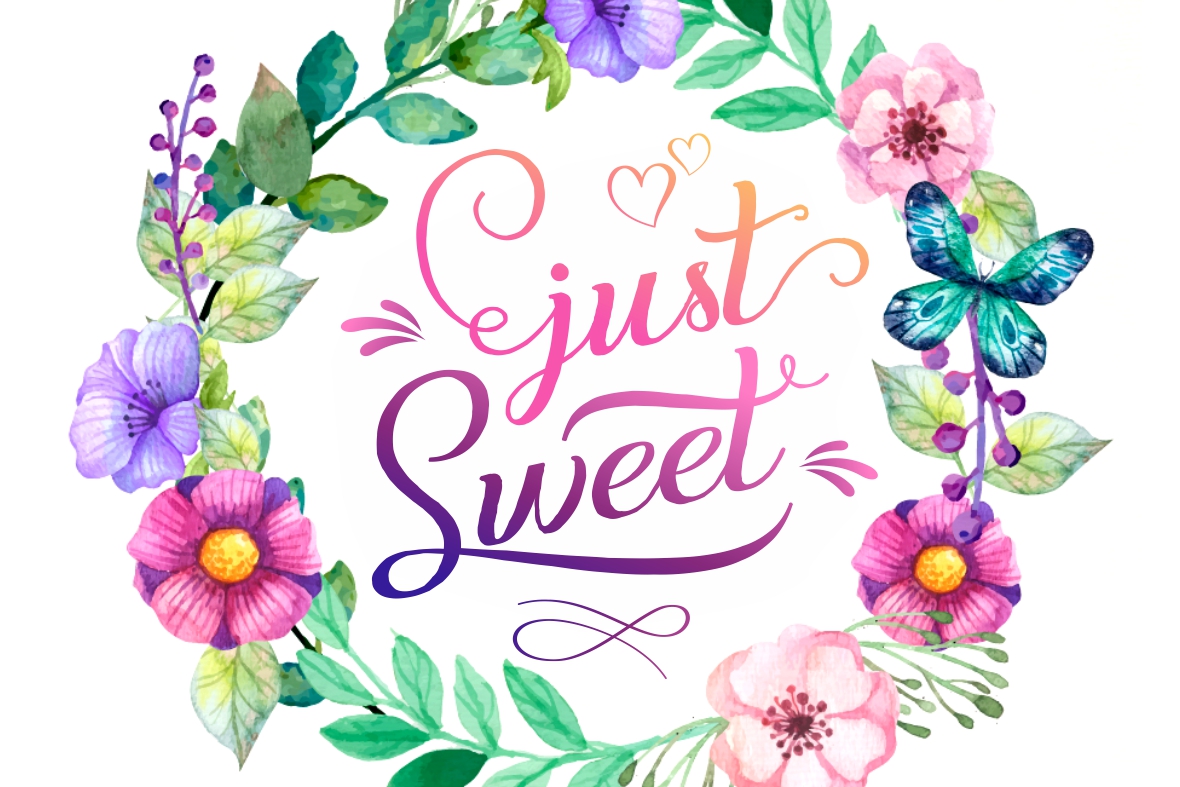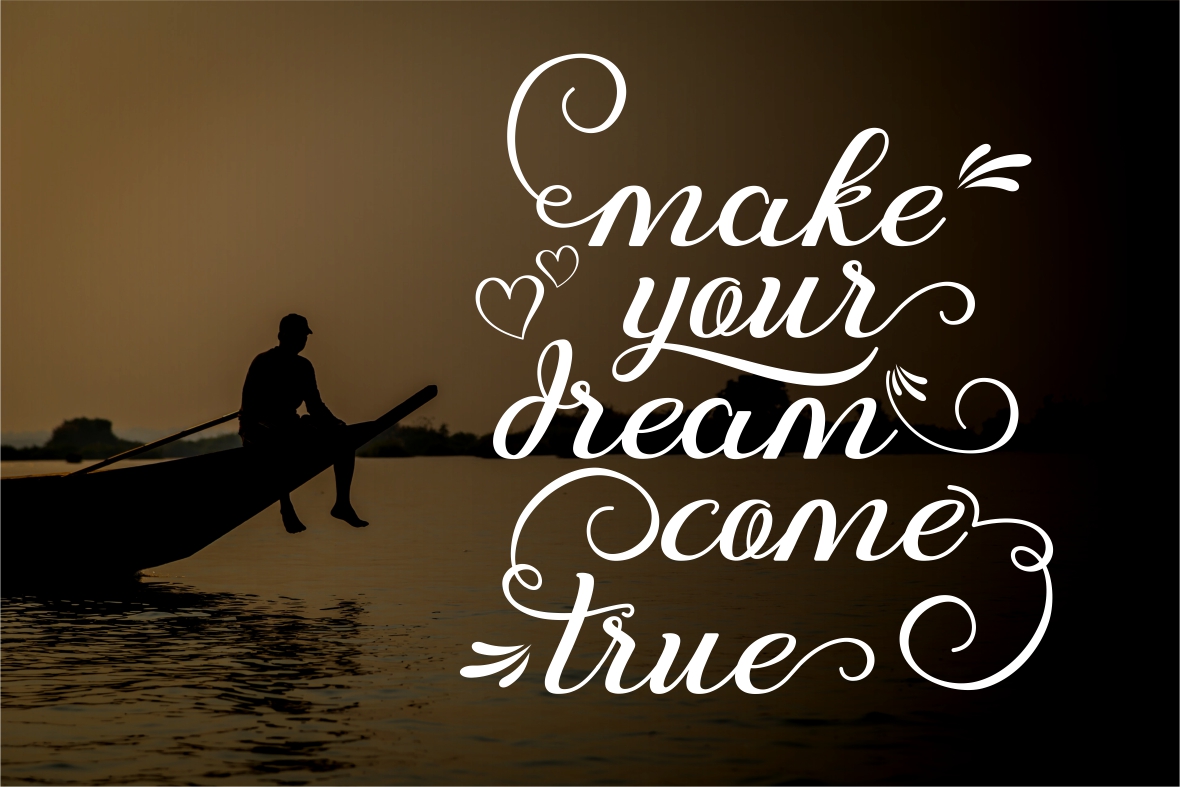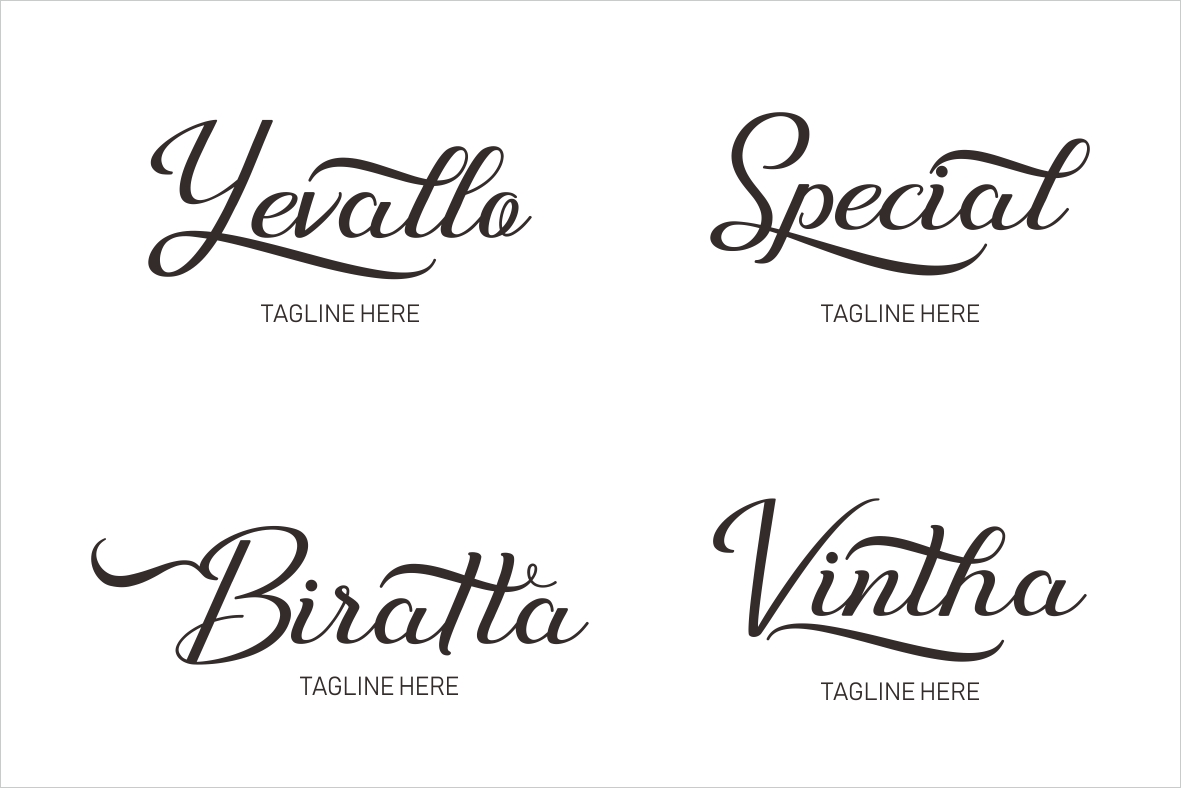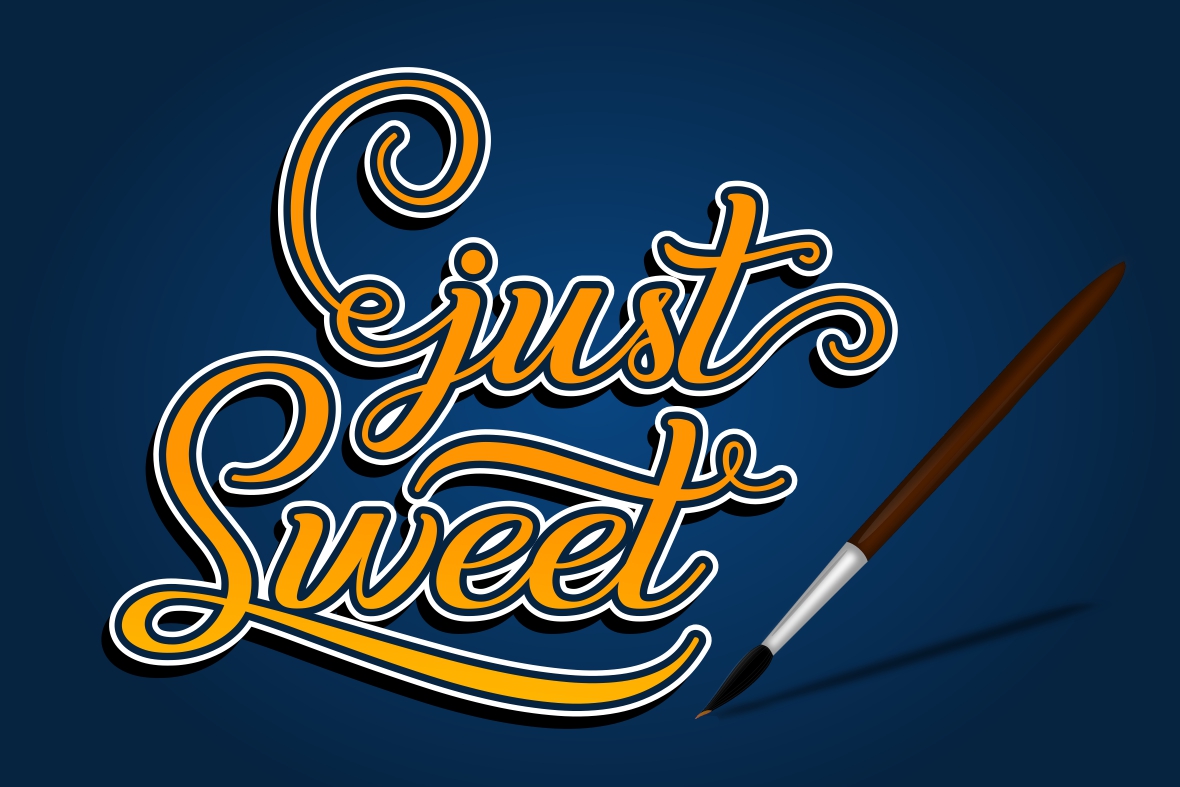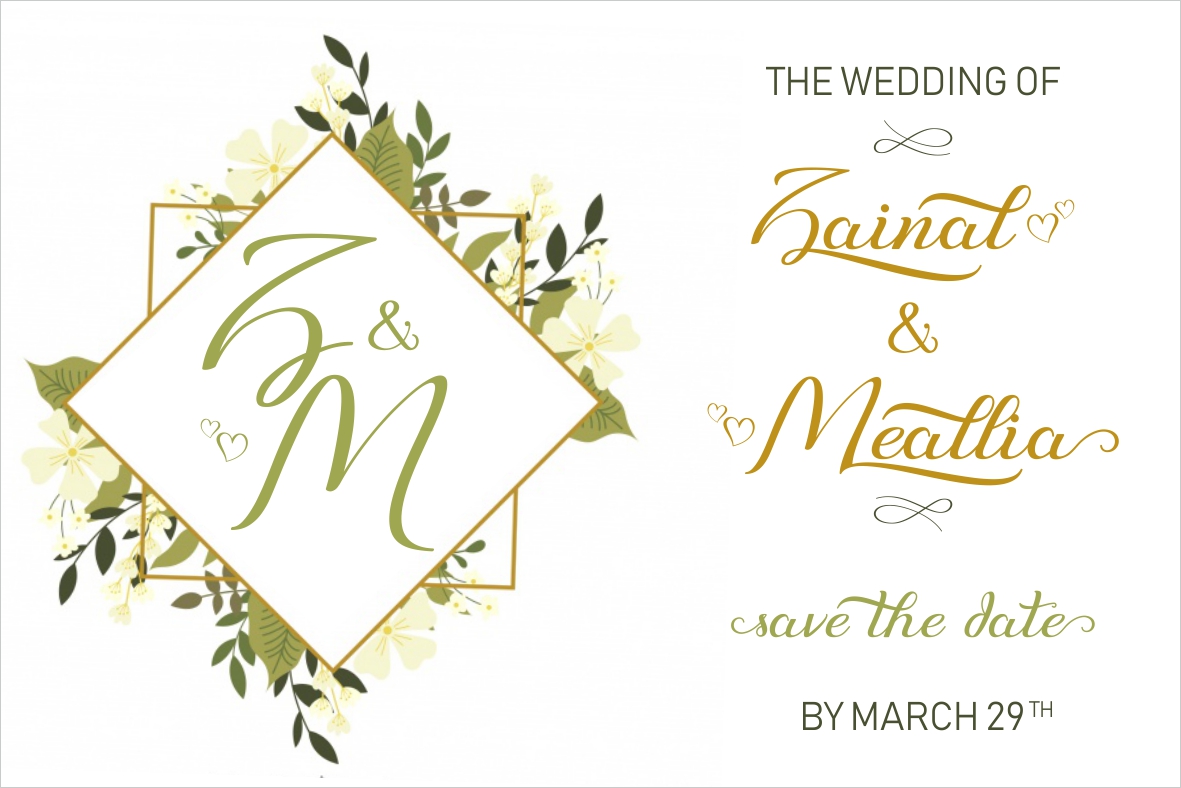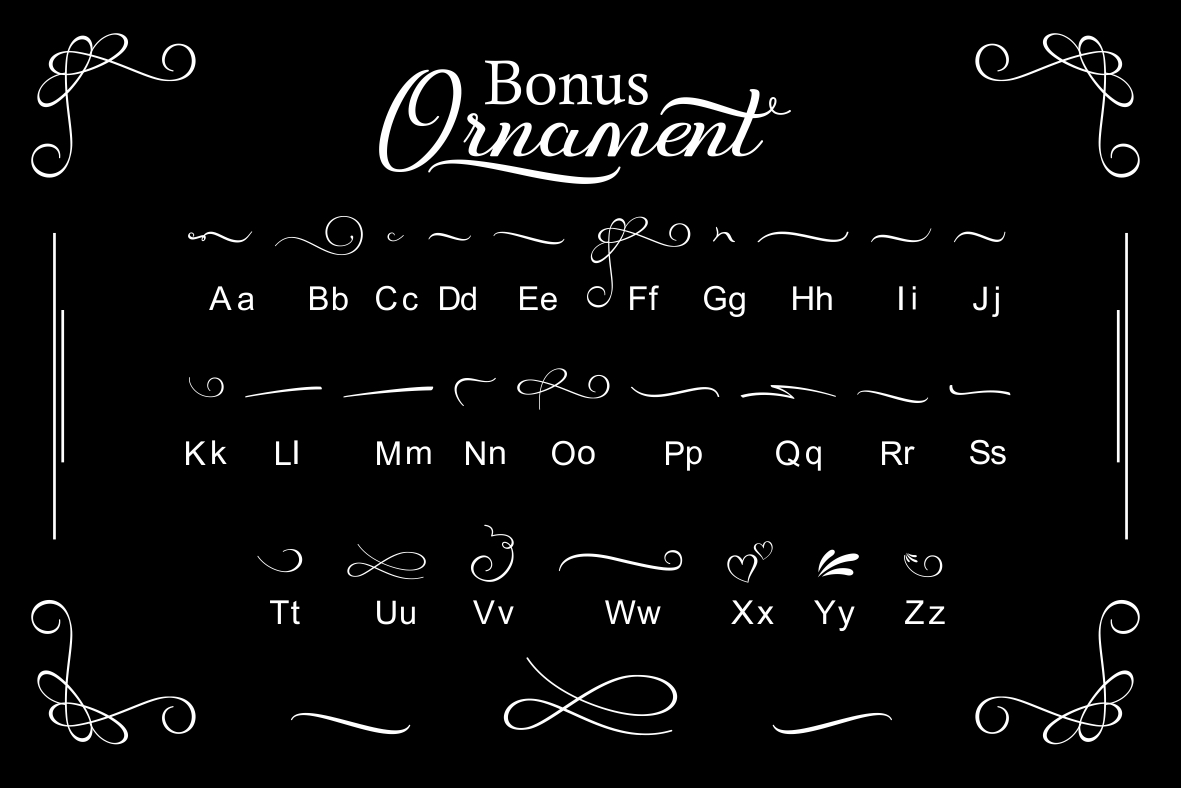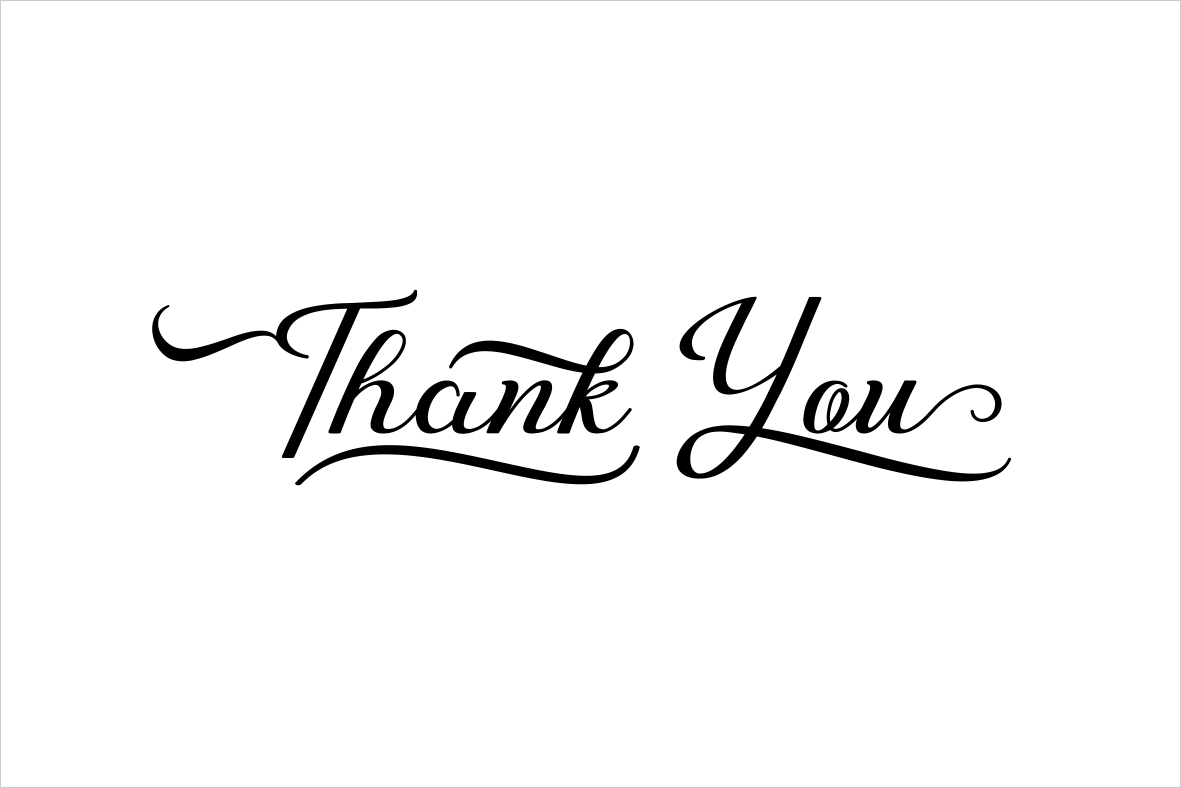
Just Sweet Font
Just Sweet is a fresh and modern script made with handwritten calligraphy. Its features include decorative characters and a dancing baseline so you can have a carefree yet gorgeous typeface ruling your most special displays and headlines.